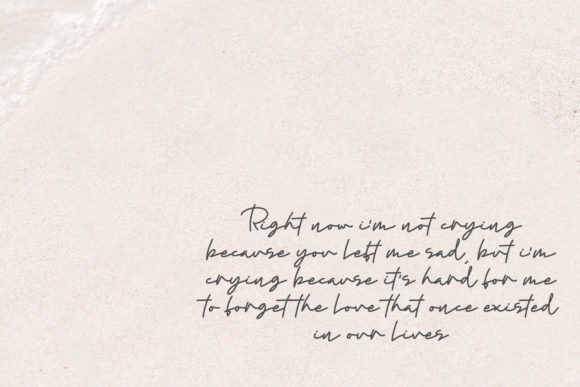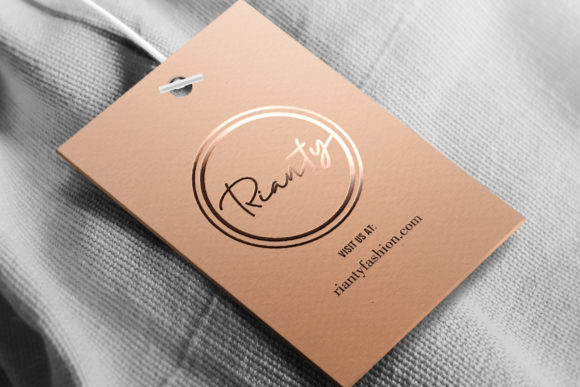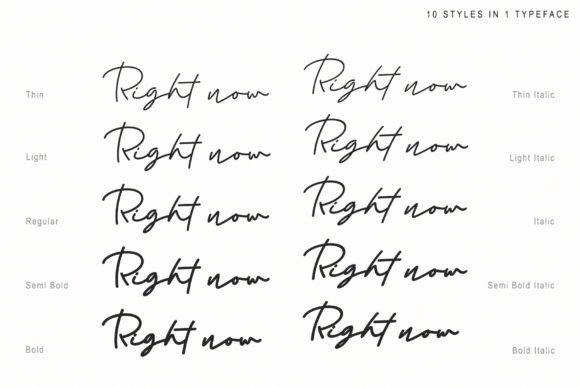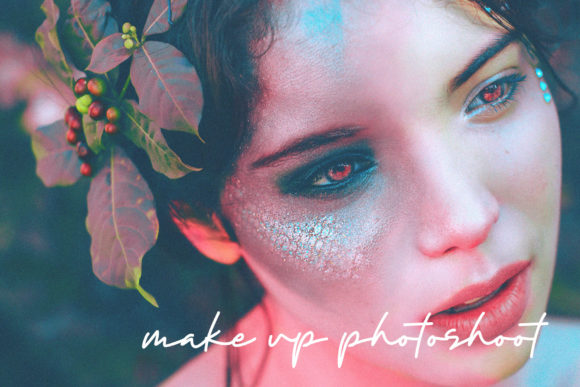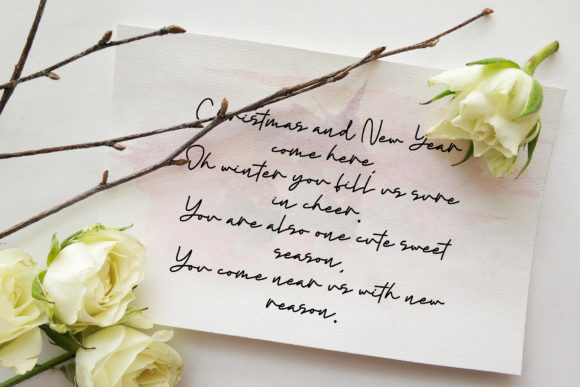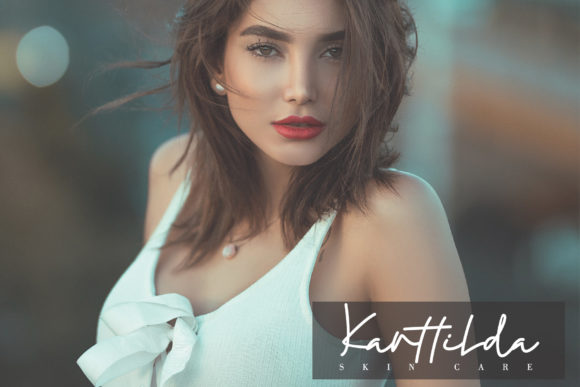
Introduction to Right Now Font Font
Fonts play a crucial role in design, and the Right Now Font font is a typeface that brings both character and versatility to any project. Whether you’re working on a branding project, a website, or a print design, the Right Now Font font offers a unique style that can elevate your work.
Right Now is monoline script font with an elegant style.
Get inspired by its contemporary style .
Key Features of Right Now Font Font
Why Choose Right Now Font Font?
The Right Now Font font is more than just a typeface – it’s a design tool that helps you communicate your message with style and clarity. Its unique character set and versatile design make it suitable for a wide range of applications, from elegant invitations to bold headlines.
With its carefully crafted letterforms and balanced proportions, the Right Now Font font ensures readability and visual appeal across all mediums.
What makes Right Now Font font special?
The Right Now Font font stands out with its unique design, exceptional readability, and versatility across various design applications.